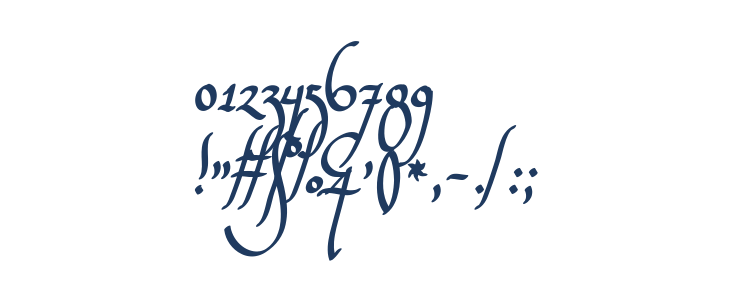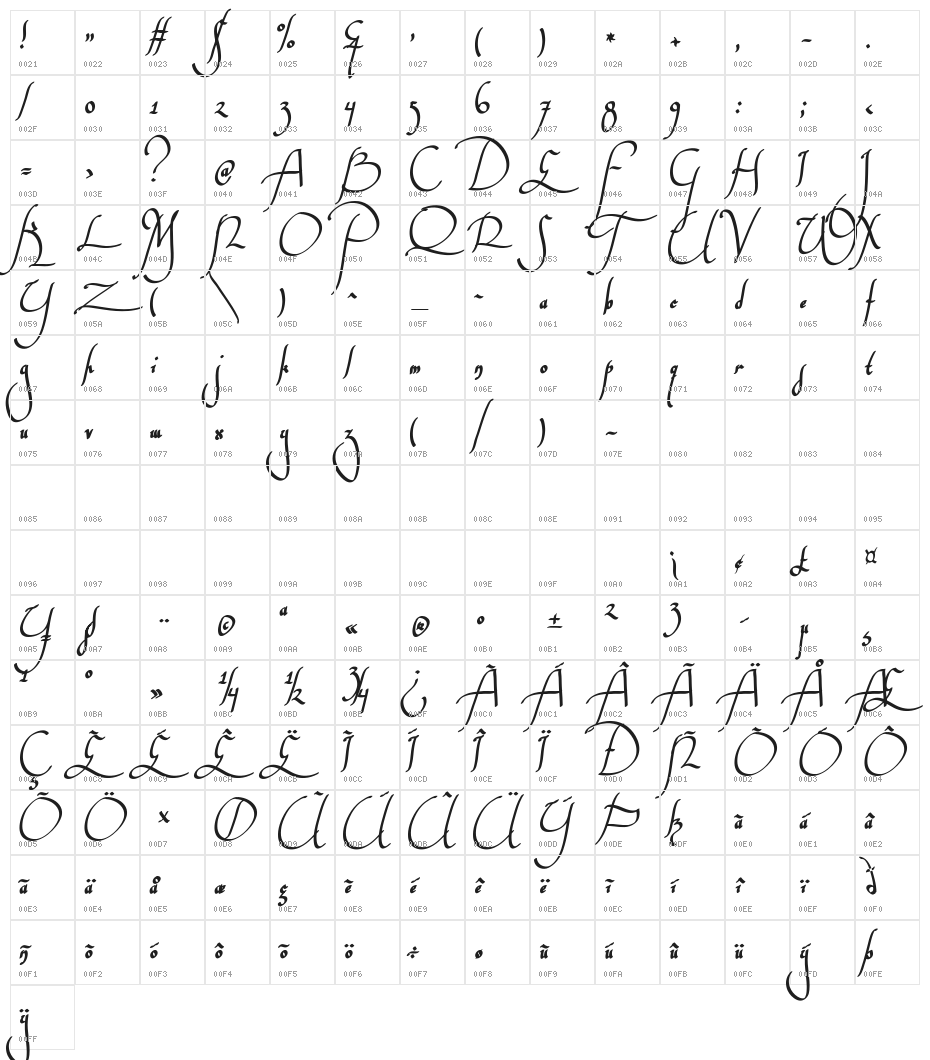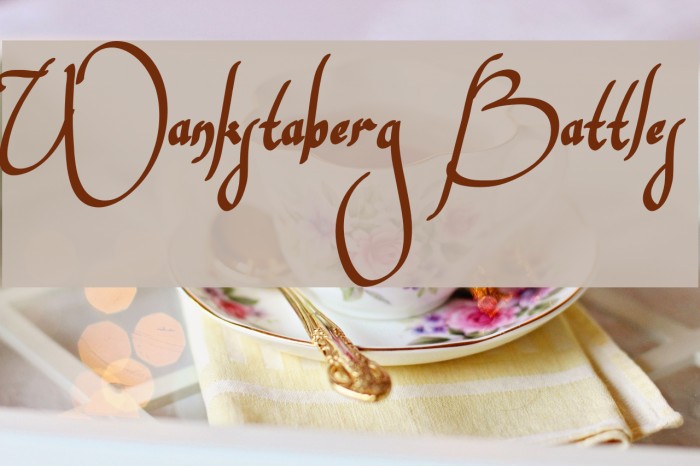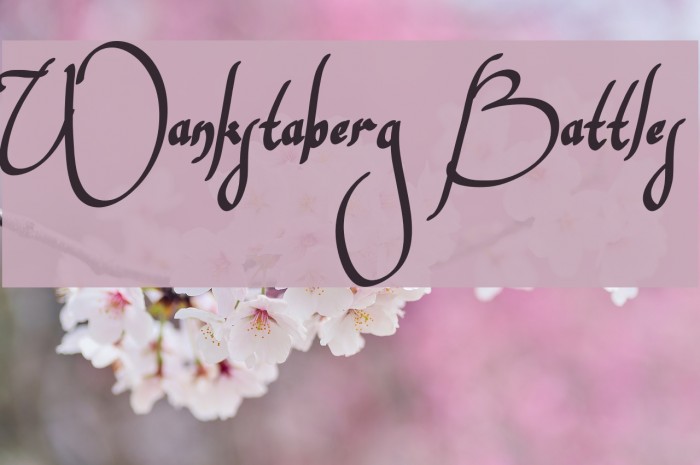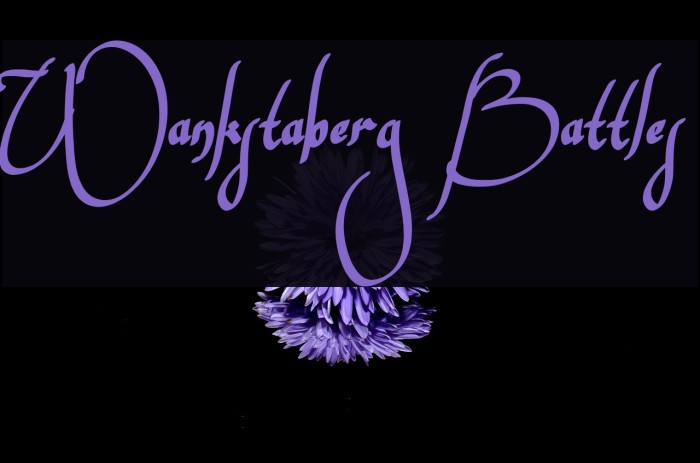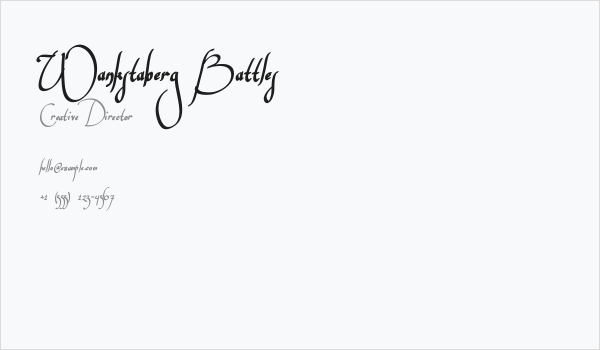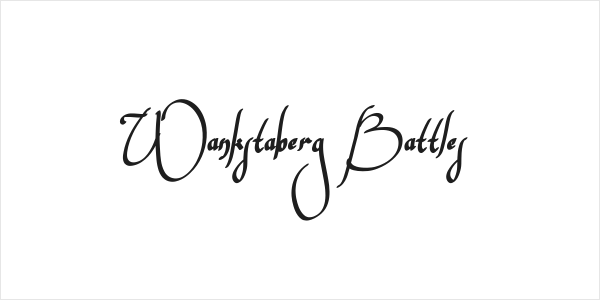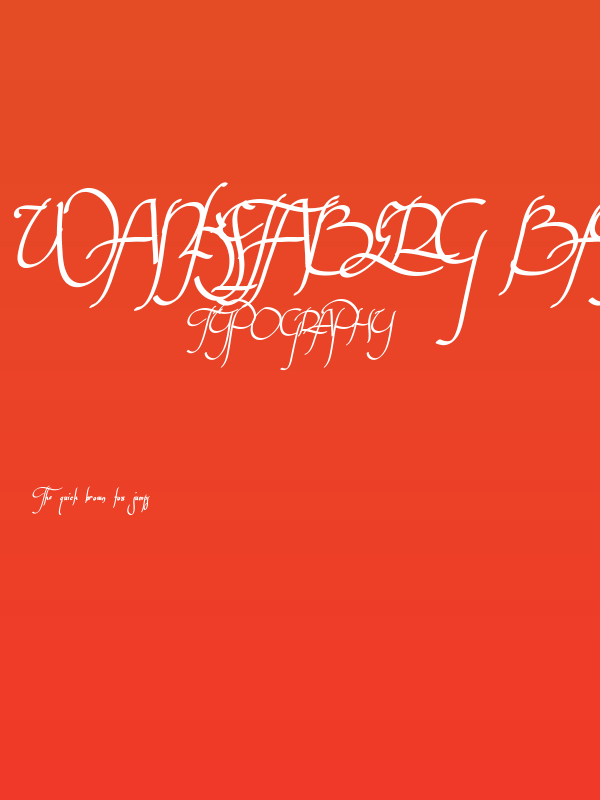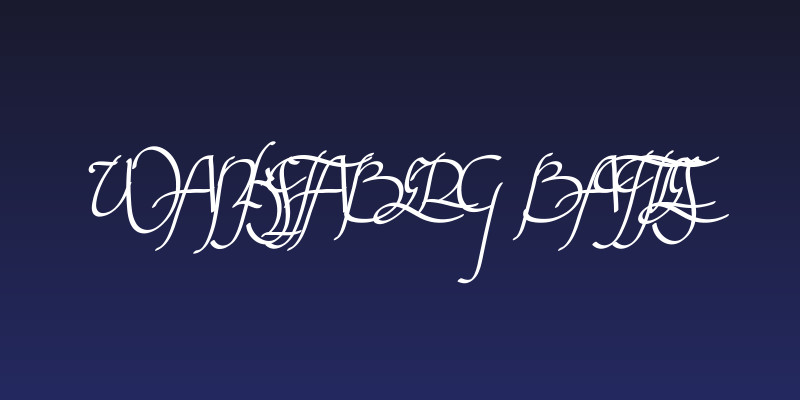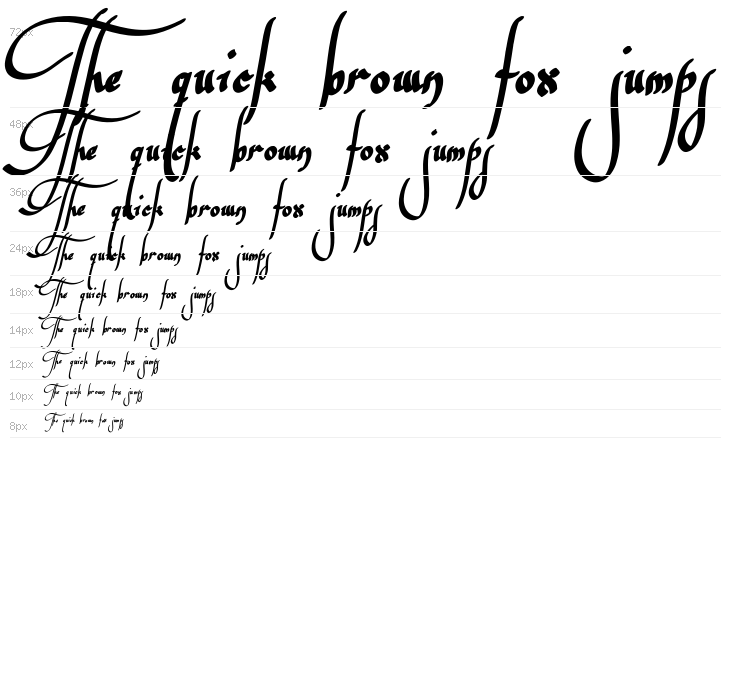
Wankstaberg Battles Font
Wankstaberg Battles Description
This font features an intricate and artistic design, characterized by its flowing, cursive style that mimics the fluidity of handwriting. The uppercase letters are elaborate, with exaggerated loops and swirls, creating a sense of movement and elegance. The lowercase letters maintain a consistent style, offering a more readable form while still retaining the decorative flair. Numbers and special characters are designed with the same attention to detail, ensuring a cohesive look across all elements. The font's unique style makes it suitable for creative and expressive projects where a touch of sophistication and artistry is desired.
| Proposed Projects | Ideal for wedding invitations, artistic posters, branding for luxury products, and any project requiring an elegant, handwritten touch. |